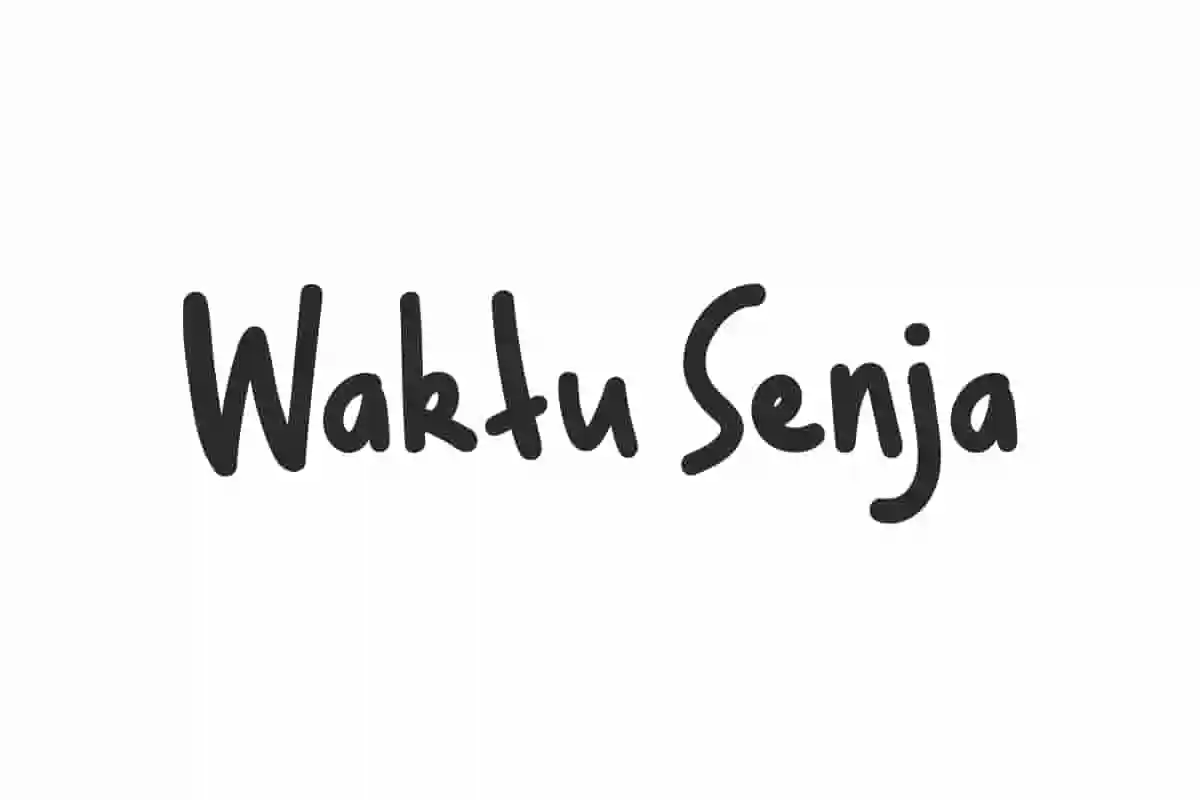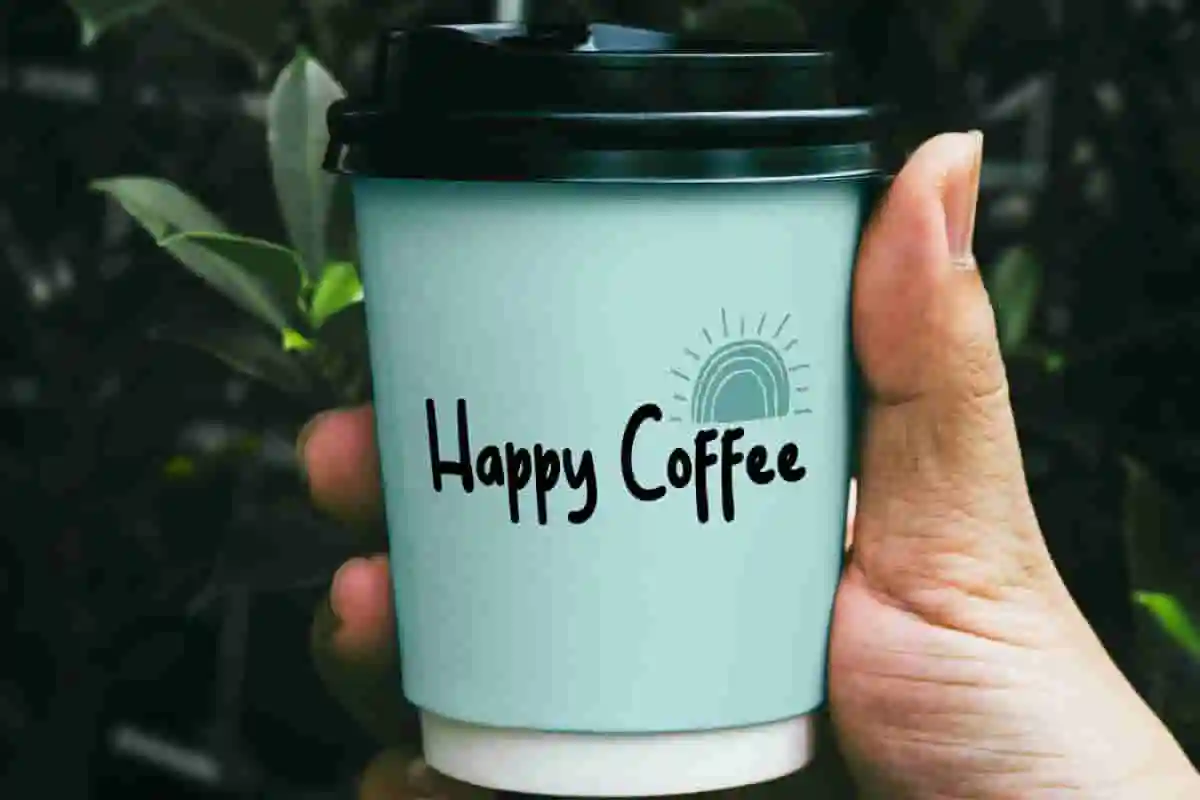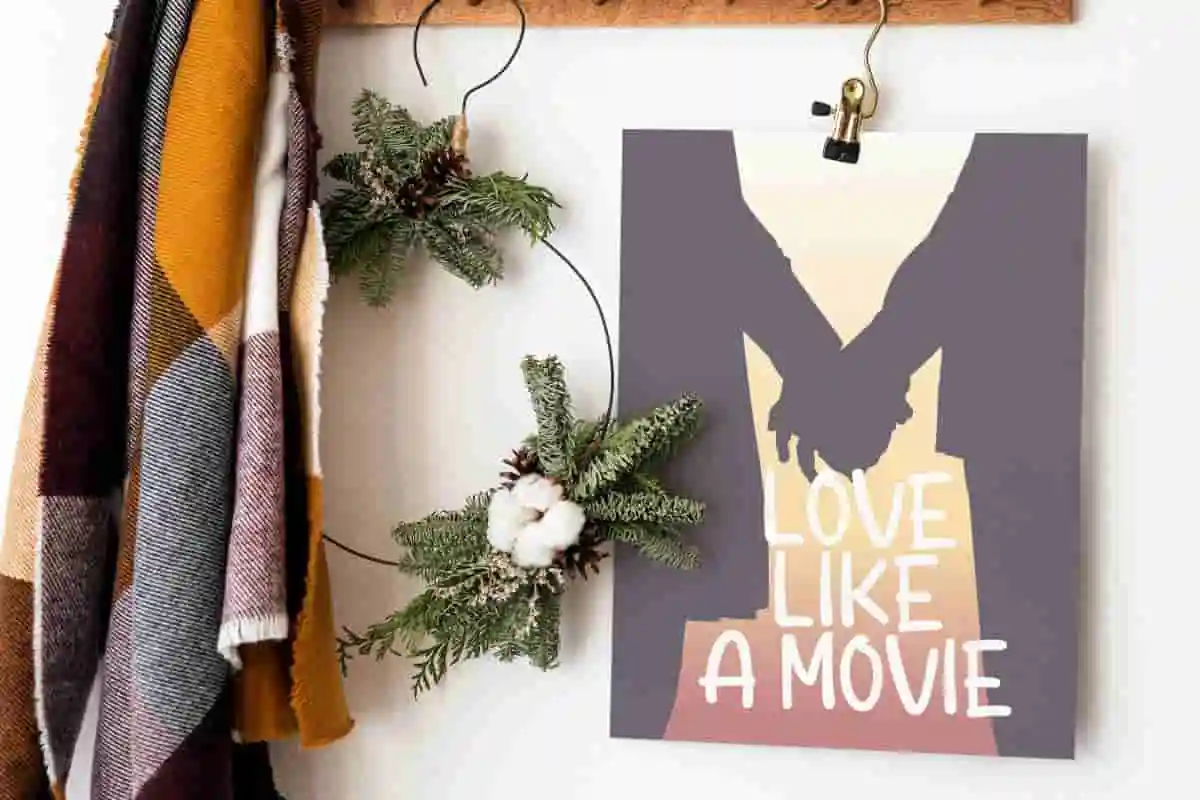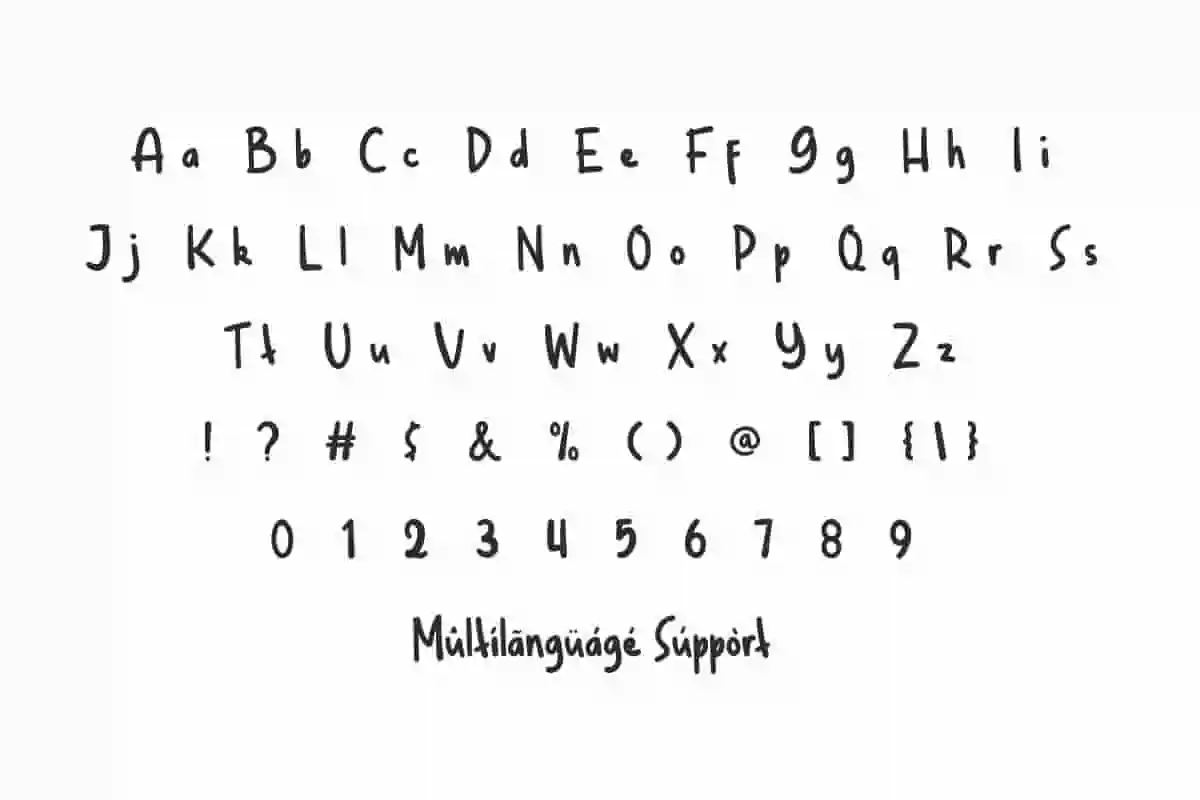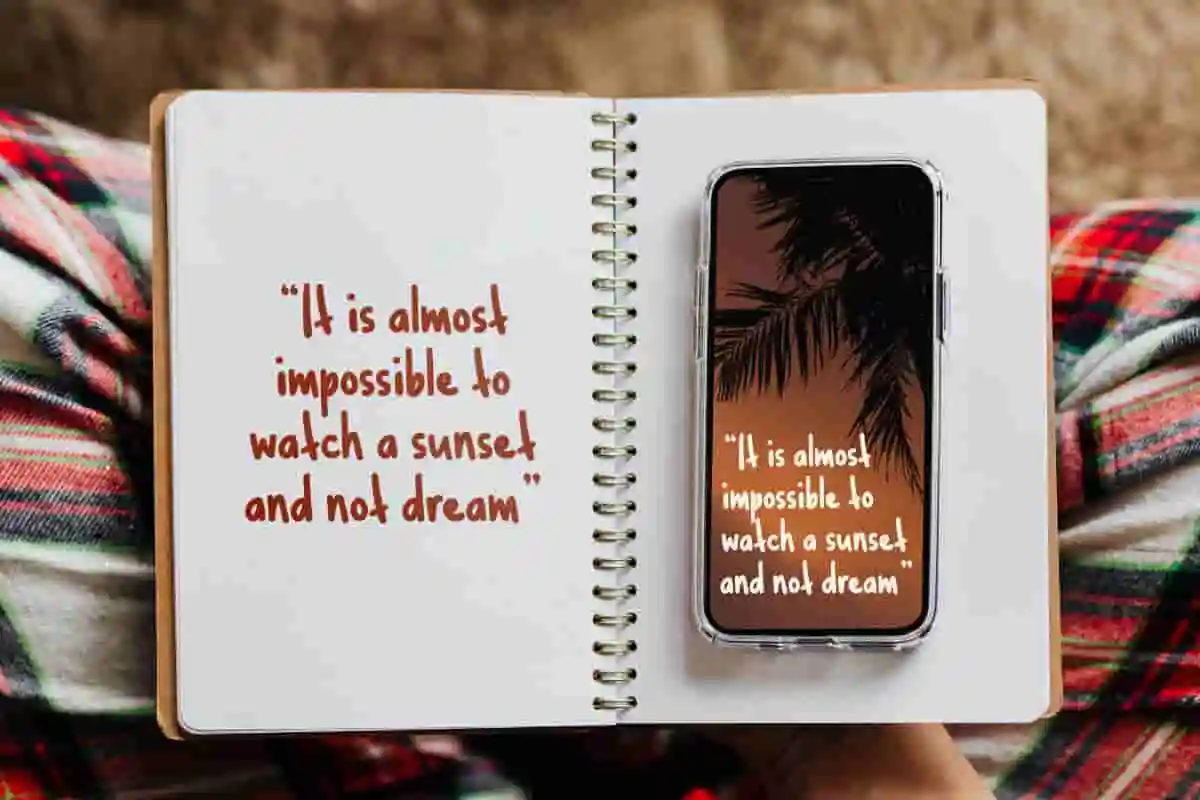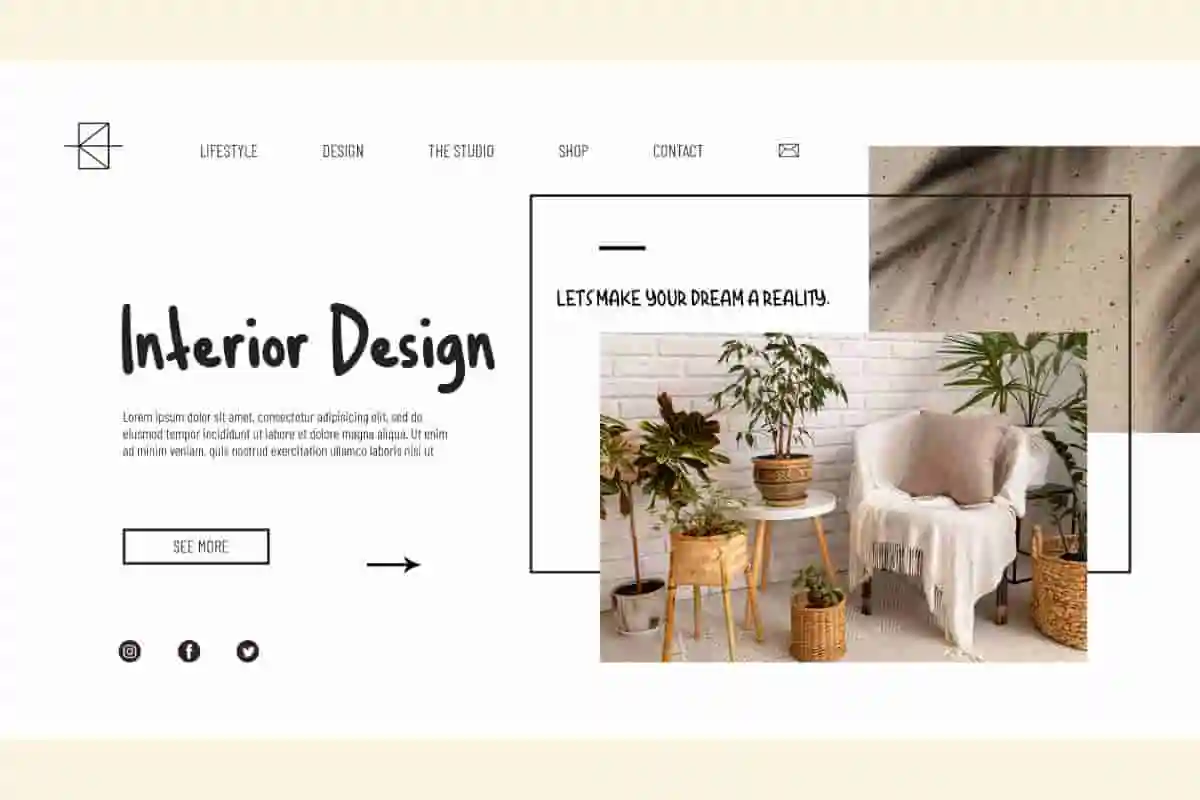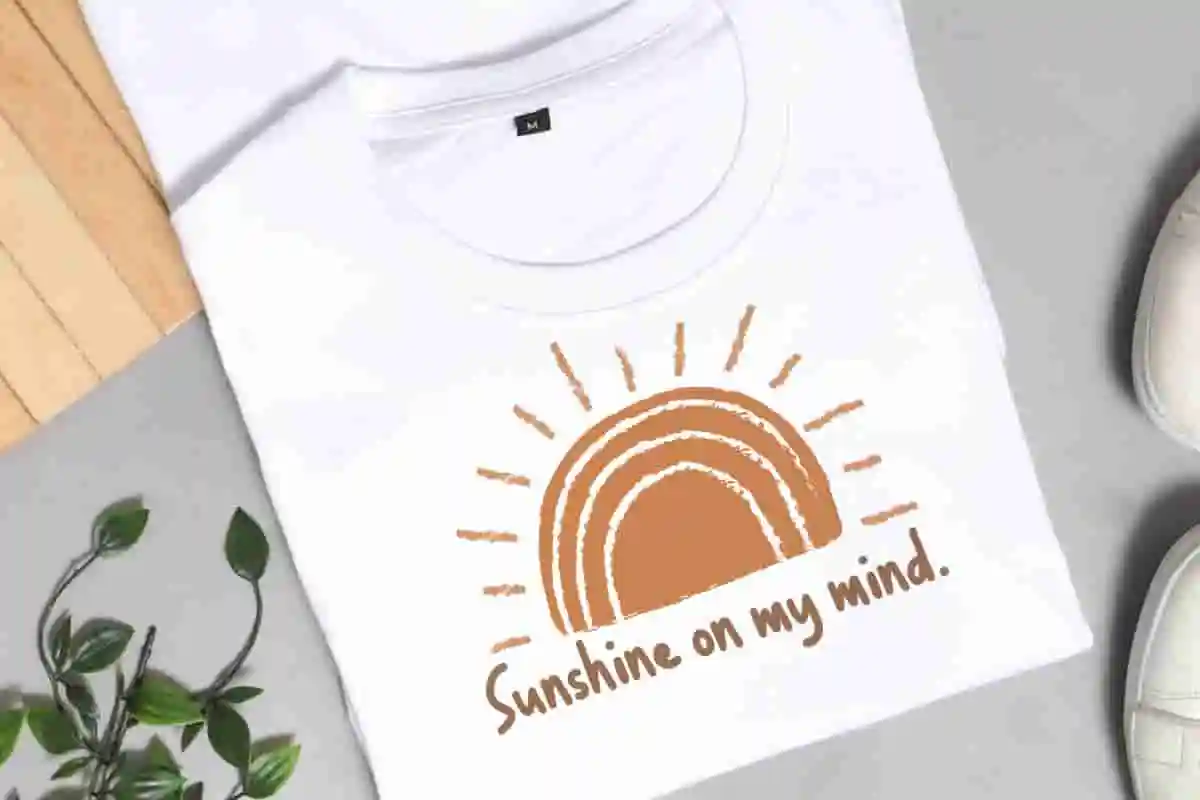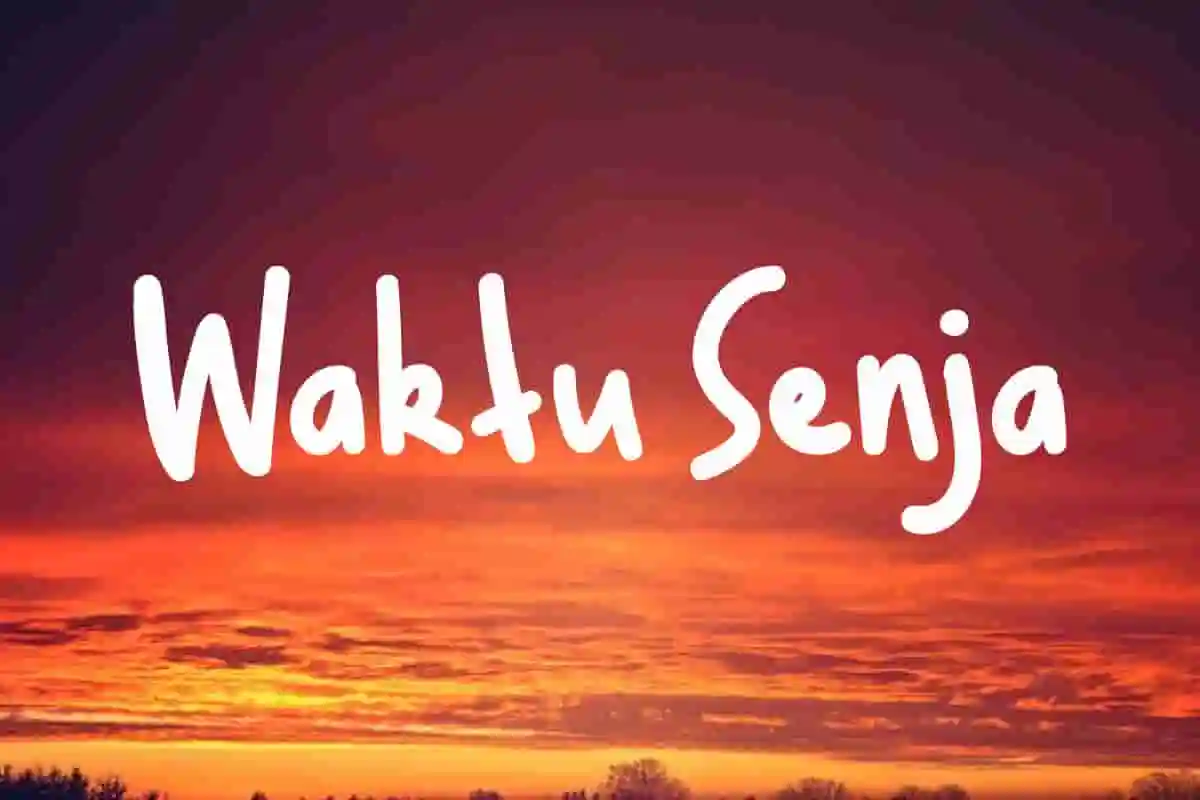
Waktu Senja Font is a cute and fun display font with a casual handwriting style. It is suitable for many creative ideas, whether formal or informal.
Waktu Senja Font is a cute and fun display font with a casual handwriting style. The neat brush strokes give a different and fun touch so it will be useful in whatever your design is, such as apps, brand identity, cover, label, lettering, logo design, logotype, poster, product packaging, screen printing, stationery, stickers, title, website header, etc. It brings the essence of creative art and a happy feel to the needs of this type of writing.
Waktu Senja Font includes a complete set of Uppercase and Lowercase basic characters, Numbers, Punctuation Marks and Symbols. A modern font that when looked at in the evening is still beautiful and even more enchanting. It will be suitable for use in business industries such as accessories and souvenir, architect, author, cafe, clothing brand, content creator, crockery, fashion, graphic design, handycrafts, home products, interior design, photography, printing, publishing, and many more.